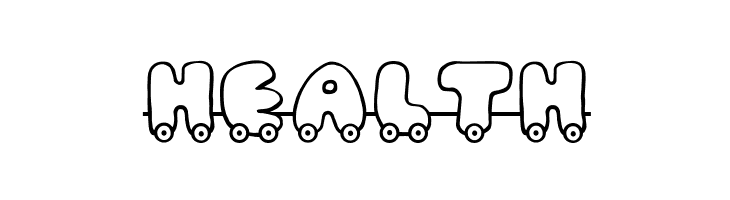
A decorative font resembling tree branches with leaves, offering a natural and whimsical style.
A playful font with letters resembling toy train cars, perfect for children's projects.
A decorative font with spiky, starburst-like extensions for a dramatic effect.
A decorative, ancient script-inspired font with sharp, angular lines and geometric shapes.
A decorative, abstract font with bold, angular lines and tribal motifs.
A dotted line instructional font for handwriting practice with stroke guides.
A dotted line font resembling connect-the-dots, ideal for educational and playful designs.
A whimsical and artistic font with playful, doodle-like characters.